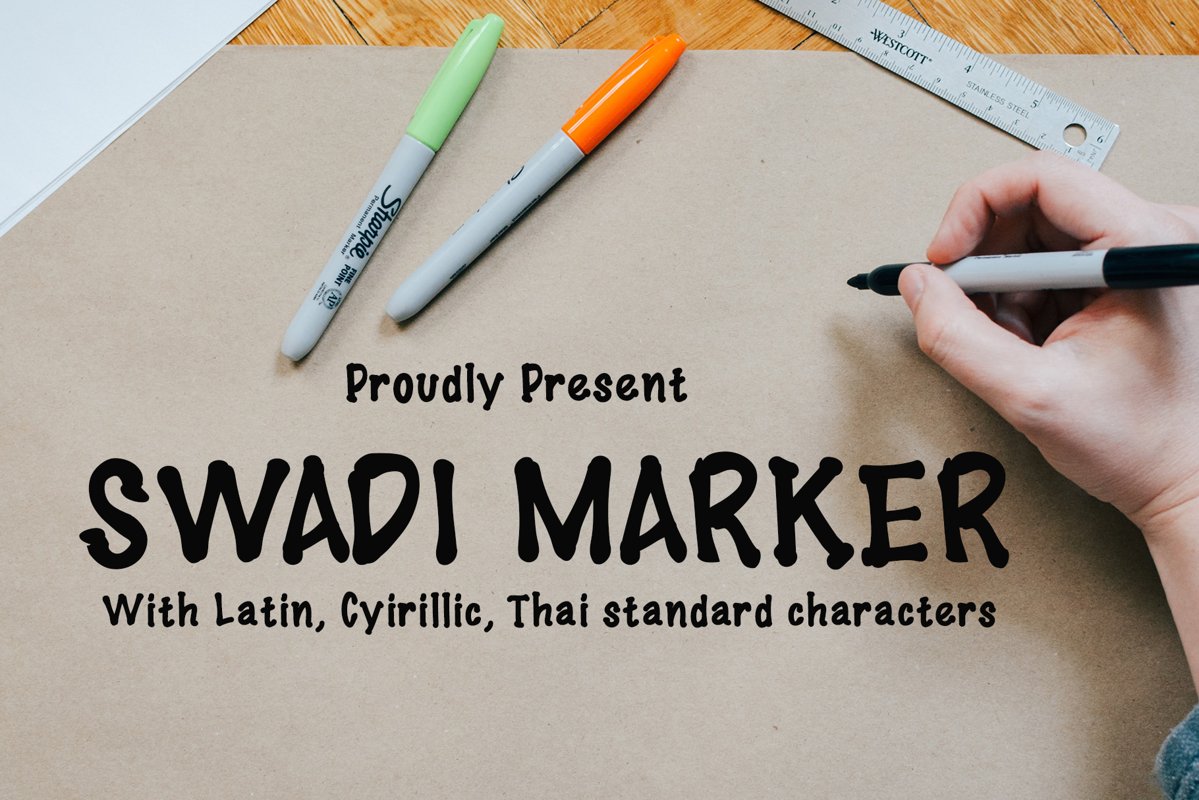
Swadi Marker
Swadi Marker is a sweet and friendly display font. Its natural and unique style makes it incredibly fitting to a large pool of designs. The only limit is your imagination. with English, Thailand and Russian Characters.